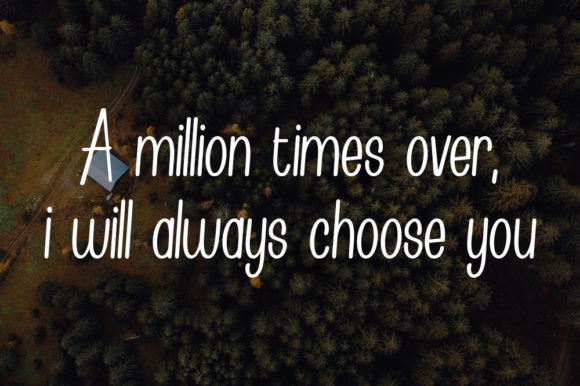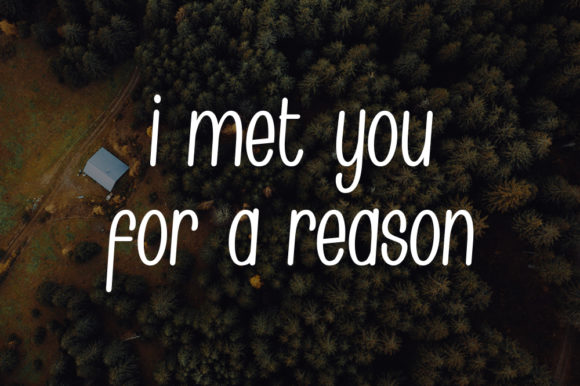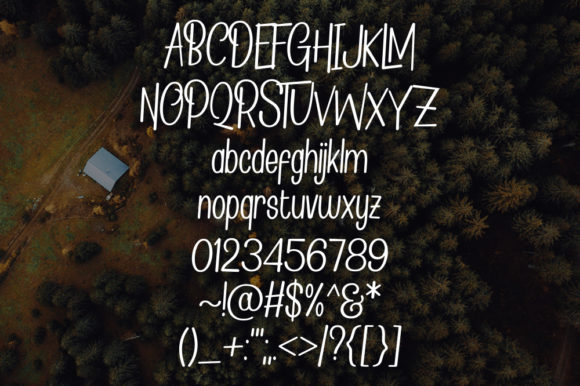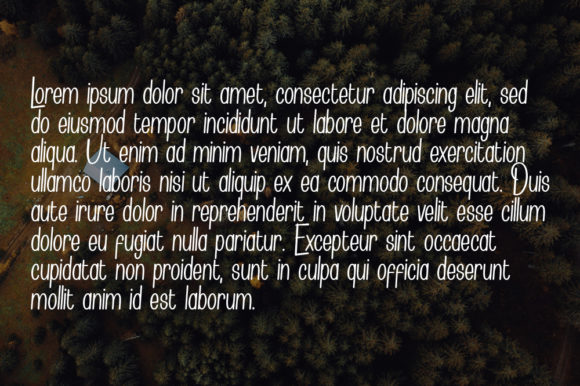
Introduction to Begold Font
Begold is a versatile script with a unique twist.
Fall in love with its unique charm, and turn any design project into a masterpiece .
Key Features of Begold Font
Why Choose Begold Font?